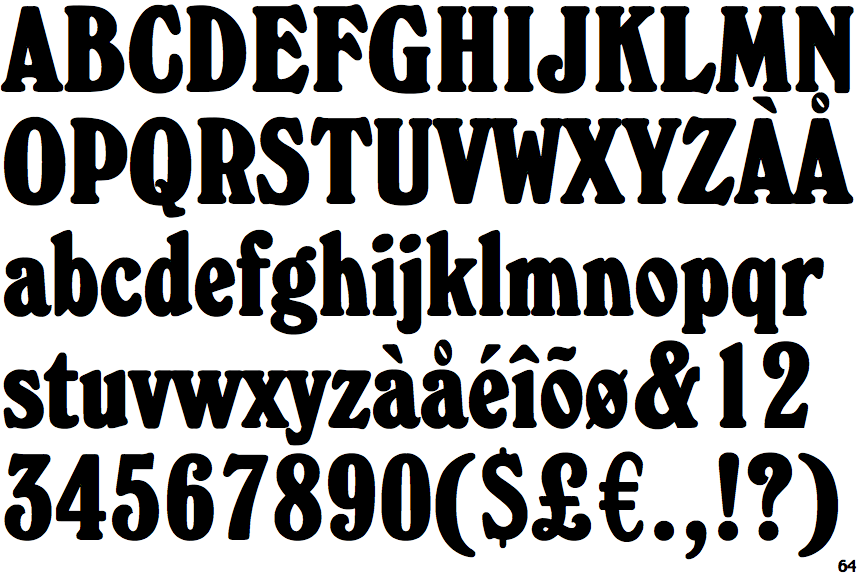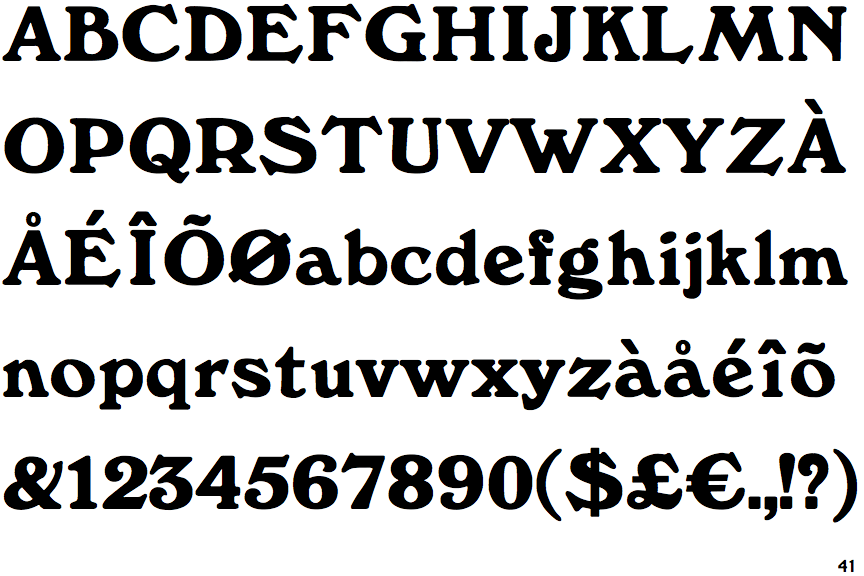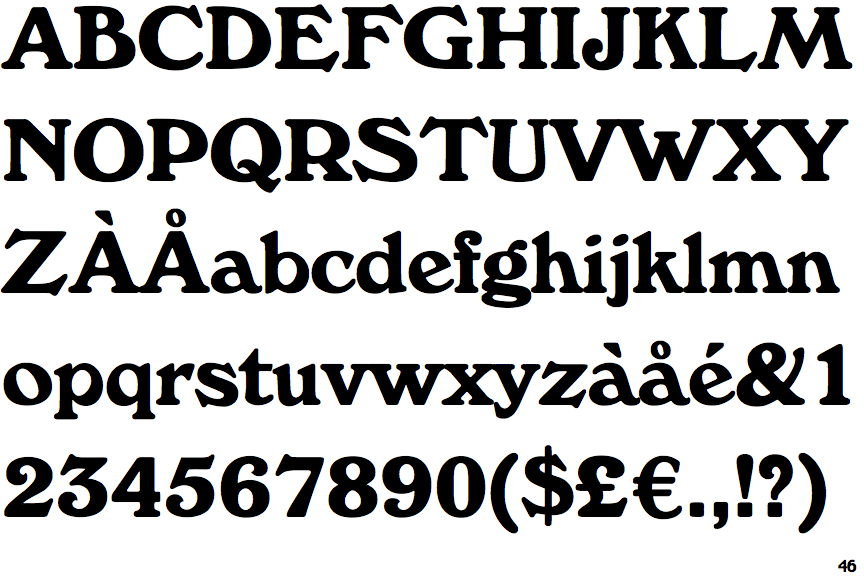
Review Of Fonts Similar To Windsor 2022
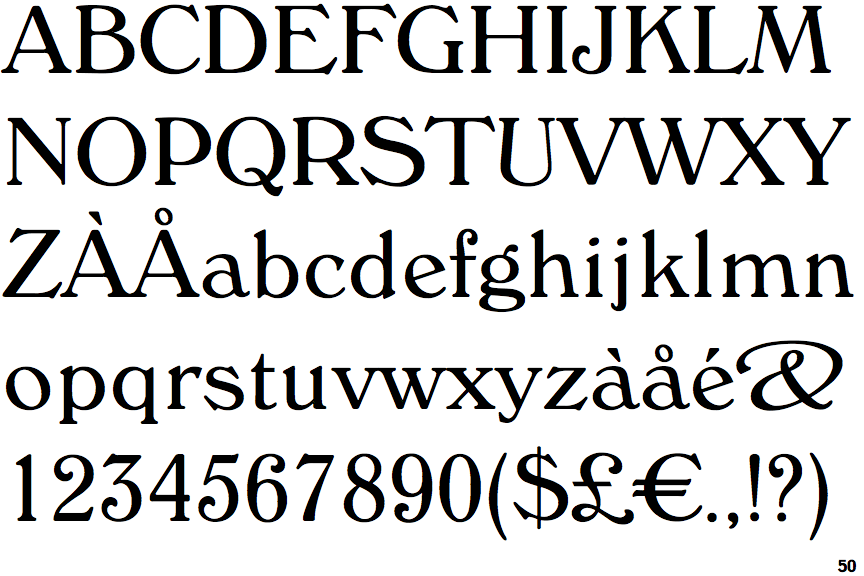
The design features distinctive angled stems on the letters a, m, n and h. If you're looking for fonts like montserrat, this article is for you. We have indexed 840,000 fonts both commercial and free from all the major foundries big and small and we`re the only service.
Windsor Was Popular In The 1970S.
Windsor is a bold face with heavy rounded serifs and strong diagonal stress. Web the font also features a signature low waistline on a few capital characters, making it unique and relaxed. Vi huynh anh hoa 2.
Web Windsor Is An Unusual Design Cut By Stephenson Blake In 1905.
Ef windsor stephenson blake elsner+flake 1903 7 styles from $35. Web try, buy and download any typeface from our collection of fonts similar to ef windsor. Web browse our collection of fonts similar to windsor.
Web about windsor font family eleisha pechy, who designed typefaces around 1900 for the british type foundry stephenson blake, created the initial windsor family. Web try, buy and download any typeface from our collection of fonts similar to windsor. Vi huynh anh hoa font;